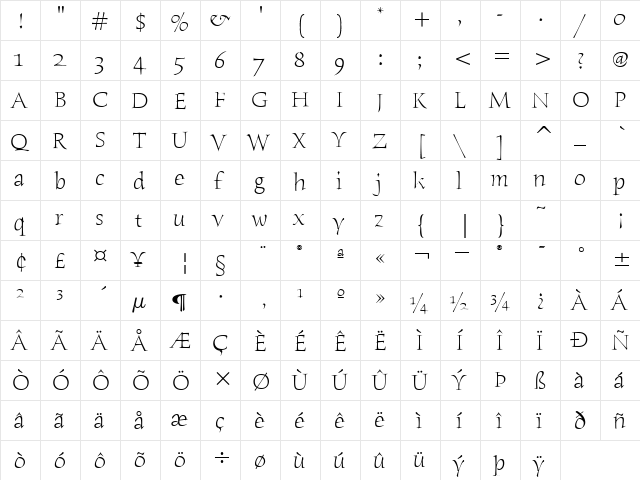
HumanaSerifITC-Light Light
Design Context for HumanaSerifITC-Light Typeface
HumanaSerifITC-Light carries the refined structure of traditional serif typography, with bracketed terminals and considered proportions that communicate credibility and craft. The delicate stroke weight brings airiness and refinement to layouts.